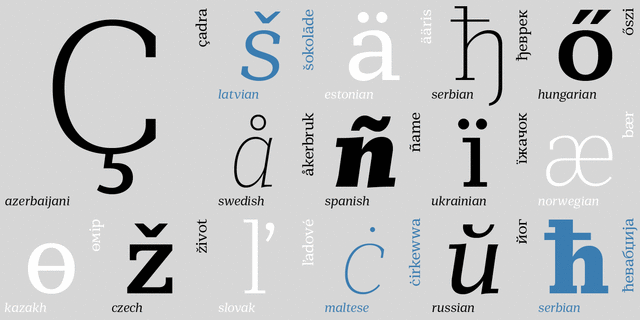
Mediator Serif (32)
Mediator Serif is a balanced contemporary serif typeface that performs well both in display sizes (like in packaging or branding) and body text (books or periodicals where narrow styles will be extremely useful). Mediator Serif is a complementary serif face for Mediator Sans. The family contains 32 fonts in 2 widths: 8 romans with matching italics, of slightly extended proportions, from Thin to Black; and 8 narrow styles with matching italics too. The character set in all faces was expanded to include small caps and old style figures. The typeface was designed by Manvel Shmavonyan with the participation of Alexander Lubovenko and released by ParaType in 2017.
delicate, clean, easy, thin, chilly, modern, clear, flat, high-quality, weightless, transparent, urban, accurate, crisp, fragile, logical, air, glass, sharp, wire, static, expensive, fresh, clever, calm, universal, simple, neutral, average, normal, business, balanced, cosmopolitan, unobtrusive, standard, moderate, technically, straight, globalized, globalistic, monotone, objective, low key, pragmatic, practical, optimal, solid, inexpressive, confidence, comfortable, strict, serious, stable, reliable, polite, indifferent, convincing, available, authoritative, self-assured, important, correct, independent, responsible, west, cold, fashionable, significant, mandatory, reputable, strong, heavy, urbanistic, rude, motivating, schematic, engineering, powerful, dense